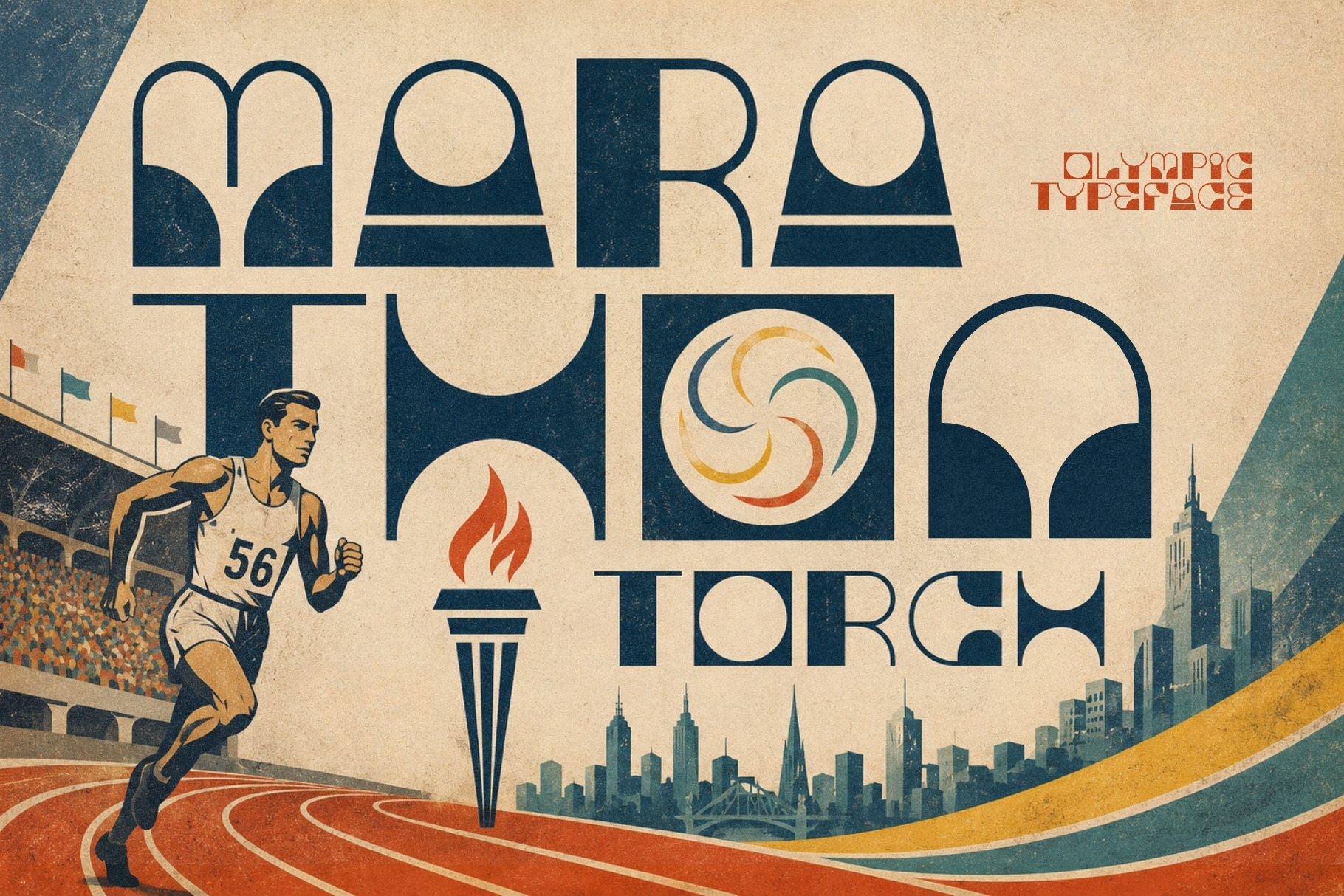
Marathon Torch – Olympic 1950's Font
Marathon Torch is a bold brutalist display font inspired by 1950s Olympic typography, mid-century signage, and monumental architecture. Built with strong geometric forms, tall proportions, and striking negative space, this typeface feels powerful, athletic, and timeless. It captures the spirit of post-war optimism—where design was confident, functional, and made to endure.
Blending Art Deco elegance with raw brutalist structure, Marathon Torch features sculpted letterforms that feel carved rather than drawn. The stylized uppercase, playful lowercase, and retro-inspired numerals create a unique balance between authority and personality. Every glyph is designed to stand out, making this font perfect for high-impact visual storytelling.
Ideal for sports branding, posters, logos, editorial headlines, event graphics, fashion campaigns, and cinematic titles, Marathon Torch is a statement typeface built to command attention. If your project needs strength, motion, and iconic presence, this font carries the flame.